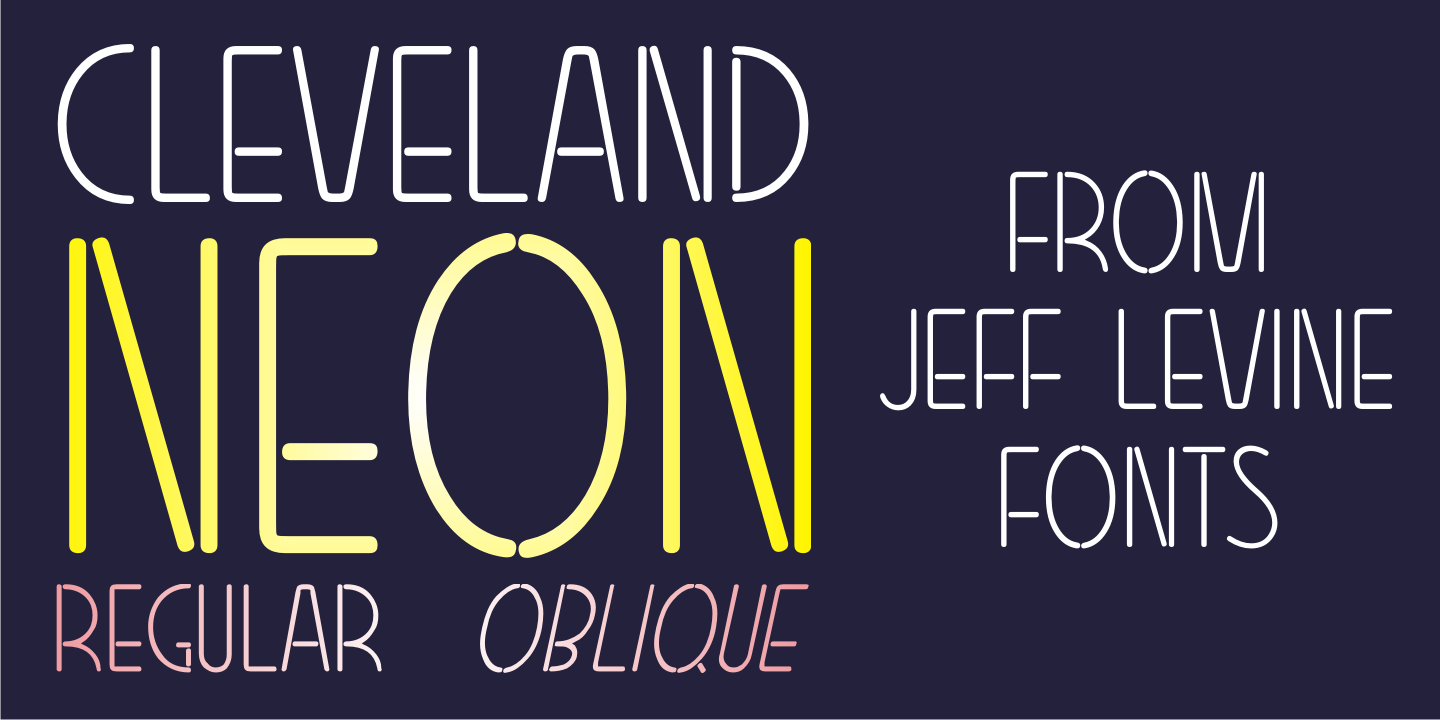
Cleveland Neon JNL is a display sans and art deco font family. This typeface has two styles and was published by Jeff Levine Fonts.
The channel letters in the neon sign for the iconic Clevelander Hotel located in the Art Deco district of Miami Beach was the inspiration and basis for Cleveland Neon JNL.